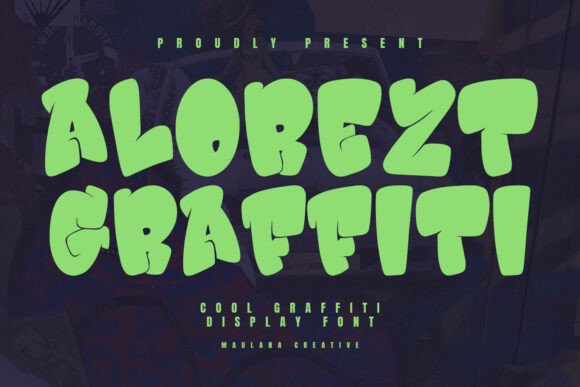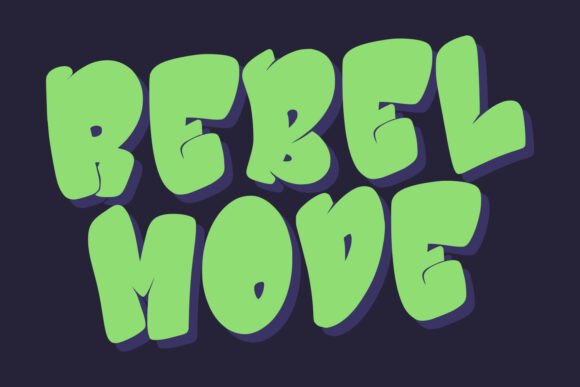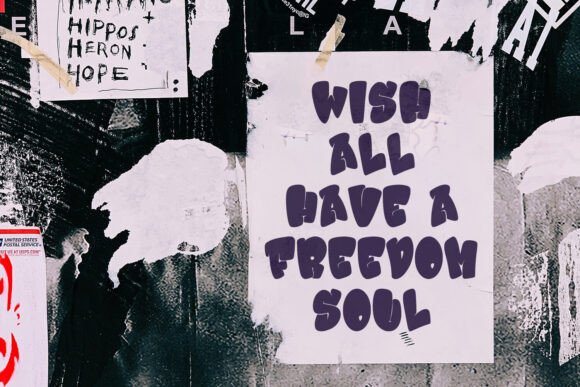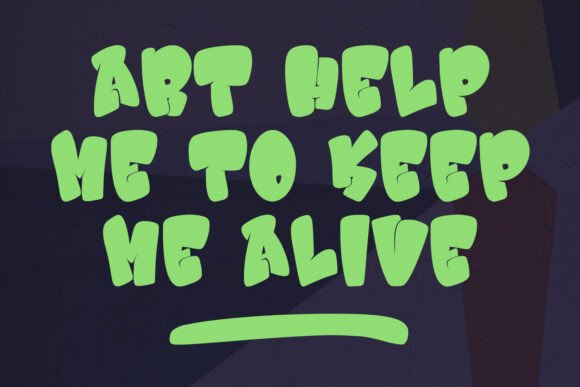
Alorezt Graffiti Font
About the Alorezt Graffiti Font
Welcome to the world of Alorezt Graffiti Font, a typeface that will inspire your next great project. Alorezt Graffiti is a bold, street-style display font with an urban, hand-drawn aesthetic. Featuring chunky, exaggerated letterforms, this font is perfect for graffiti-inspired designs, hip-hop branding, posters, and edgy streetwear projects. It captures the energy and rebellion of street art, making your text pop with personality.
Alorezt Graffiti Font excels in large-scale applications such as headlines, posters, and branding for products targeting a young, urban demographic. Its strong visual impact makes it ideal for streetwear apparel, music event promotion, or edgy product packaging. However, its highly stylized nature makes it unsuitable for body text or UI elements where readability is paramount. Extended use could lead to significant fatigue for the viewer.
Pairing Alorezt Graffiti with a clean sans-serif like Open Sans for body copy or a minimalist geometric sans-serif for supporting text creates a strong visual contrast and enhances readability. For a more rebellious feel, consider pairing it with a rough, slightly distressed serif. Conversely, a sleek, modern script font could add a touch of sophistication to balance its raw energy.
The font’s core personality is bold, rebellious, and undeniably urban. It projects an attitude of raw energy and street-smart confidence, making it a powerful choice for brands that wish to communicate a similar ethos.